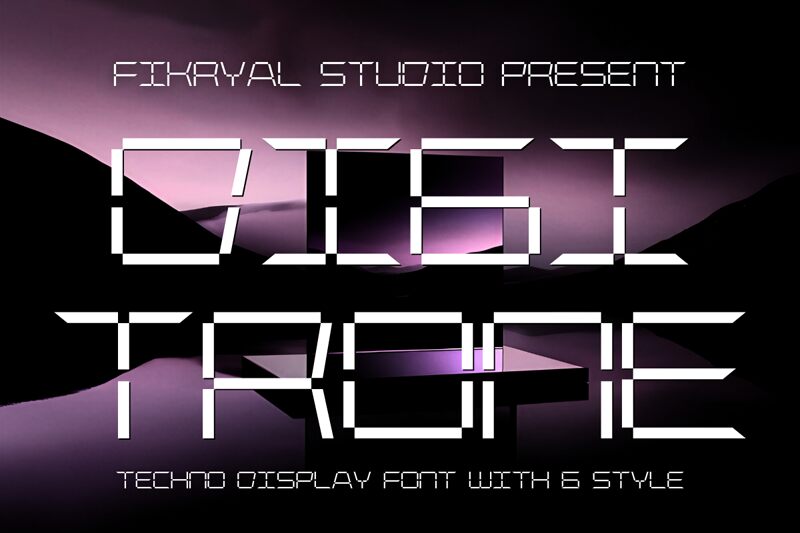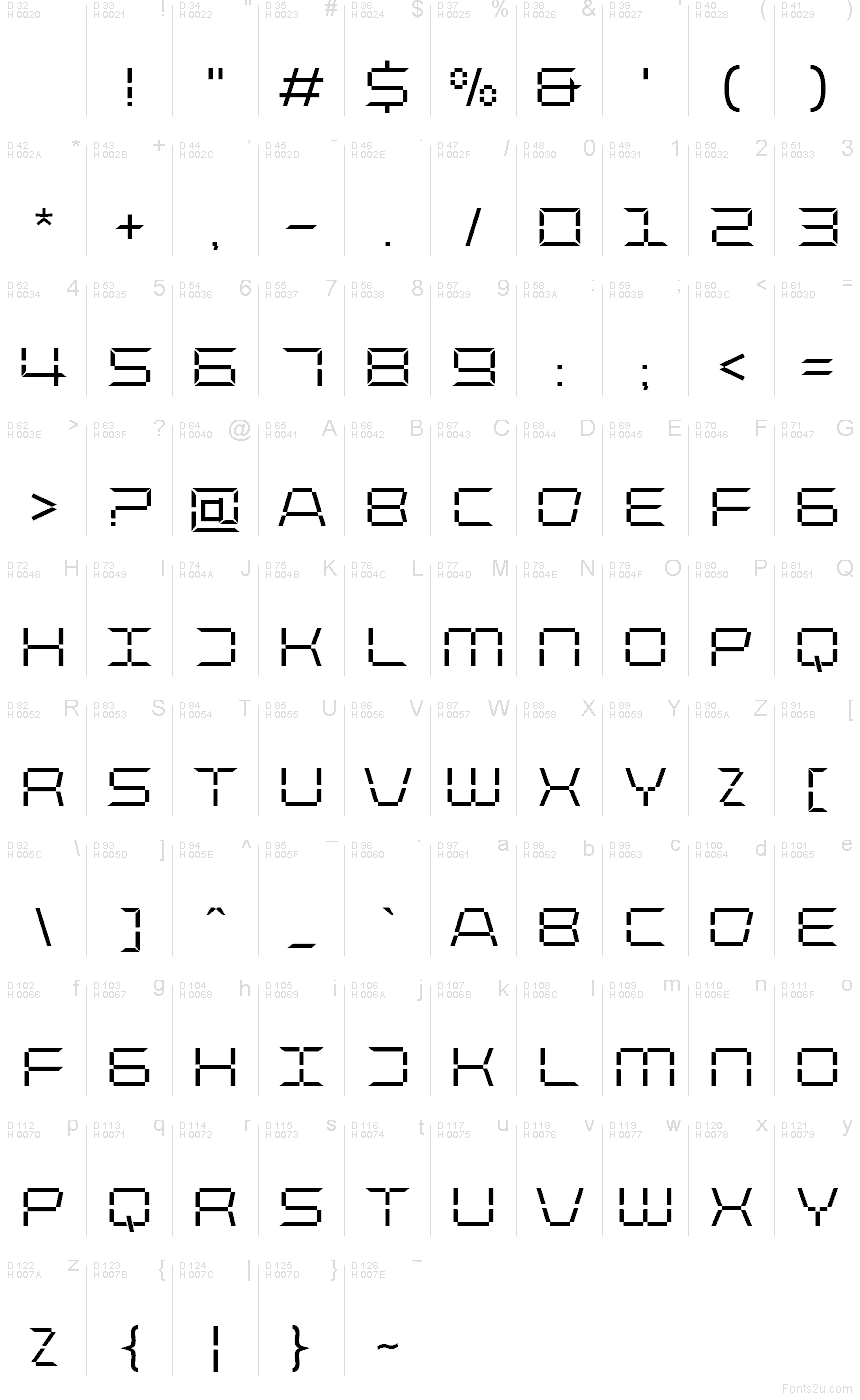
Digitrone Bold by Fikryal Studio is a free digital display font whose very wide capitals use long horizontal bars, open joins, and crisp diagonal cuts to suggest an oversized electronic readout. The broken connections give each word a brisk, technical pace.
Circuit diagrams, racing stripes, and neon interface graphics can echo those split strokes, making the face useful for game packaging, esports posters, and science-fiction title cards. The same stretched silhouette also suits electronic music merchandise and technology event signage, where the lettering can function almost like a custom control-panel graphic rather than ordinary display type in futuristic brand systems.